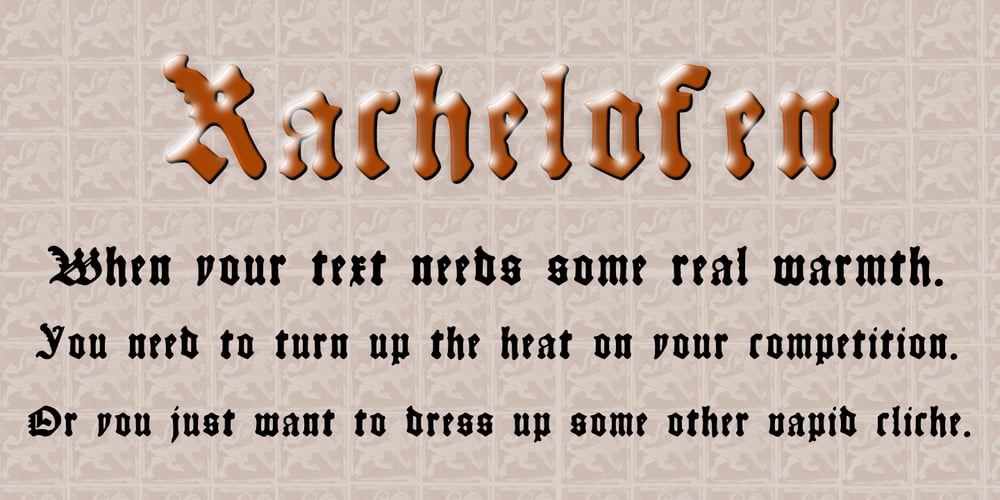
Kachelofen Font Family was designed by Shane Brandes and published by Proportional Lime. Kachelofen contains 2 styles and family package options. Konrad Kachelhofen was a printer in the city of Leipzig beginning around 1483. He printed many works by contemporary authors and also many of the classics. He acquired an unusually large amount of typefaces for his shop, a place that included a wine bar and book store. This particular face is based on the Typ.8:170G GfT101 Gesamtkatalog der Wiegendrucke. He probably died in 1529 after passing his business on to his son-in-law Melchior Lotter.